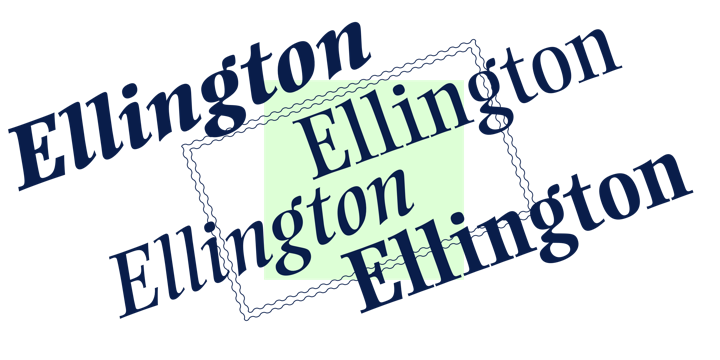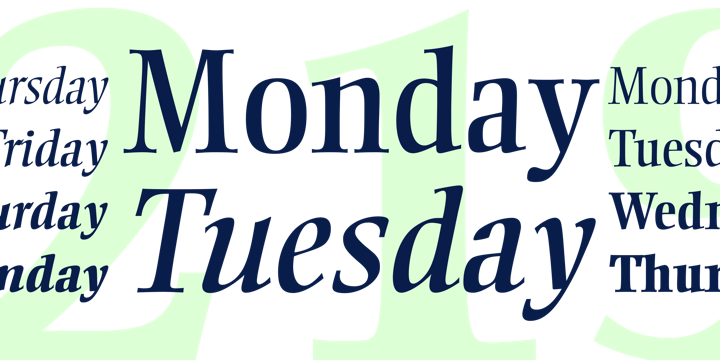
Ellington
Ellington Font Family
Michael Harvey designed Ellington for Monotype in 1990. Ellington (named after jazz musician and composer, Duke Ellington) is a text typeface that has a definite calligraphic influence that creates a lively and interesting page.